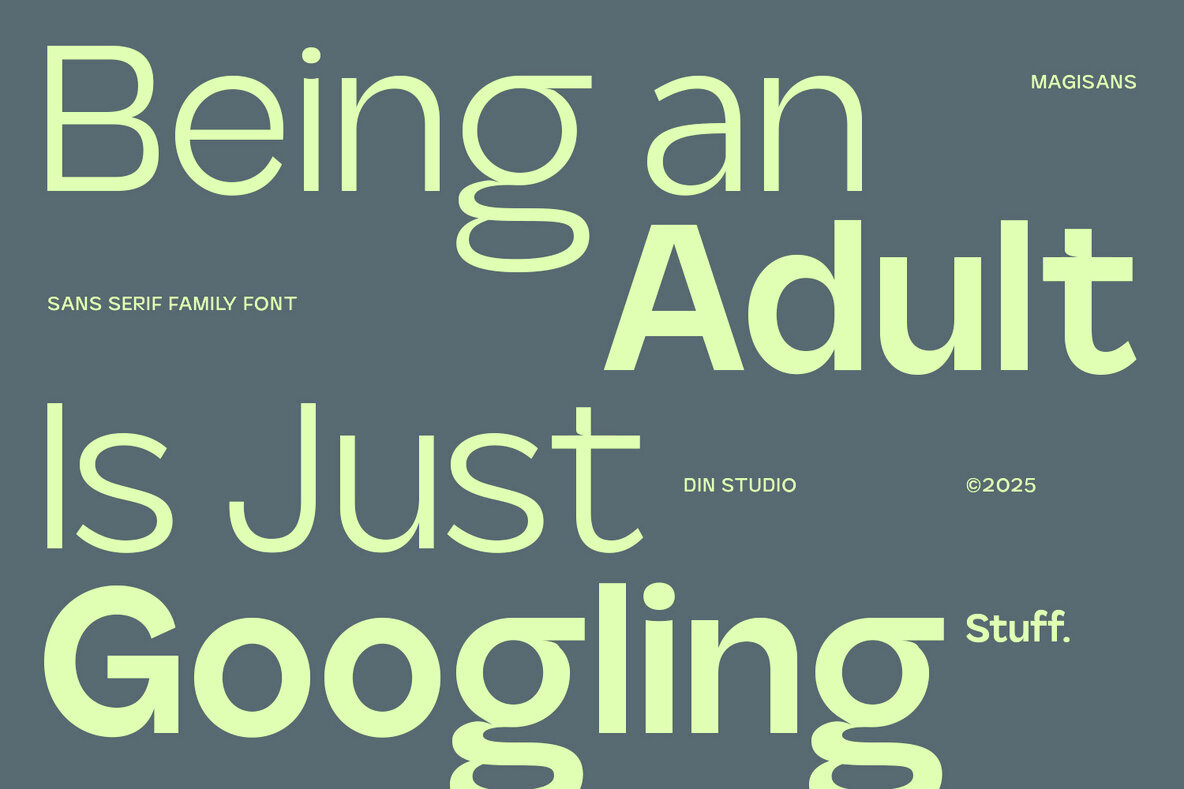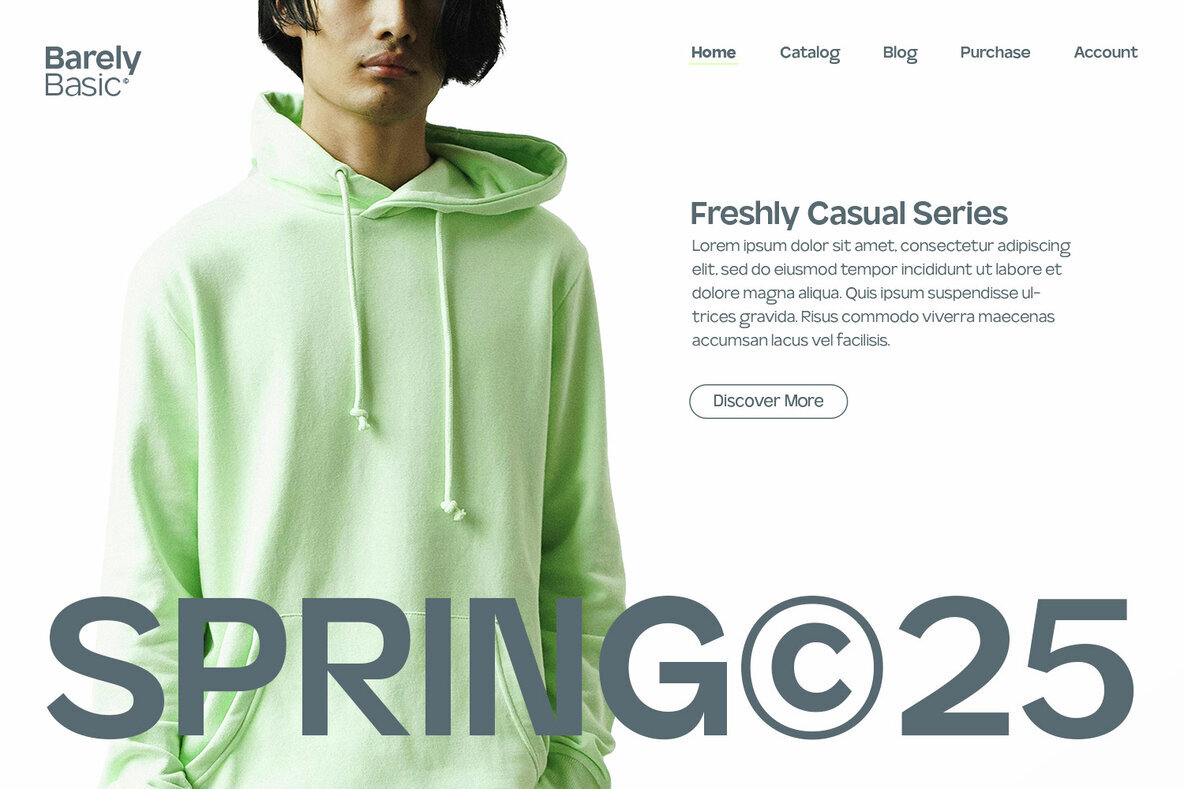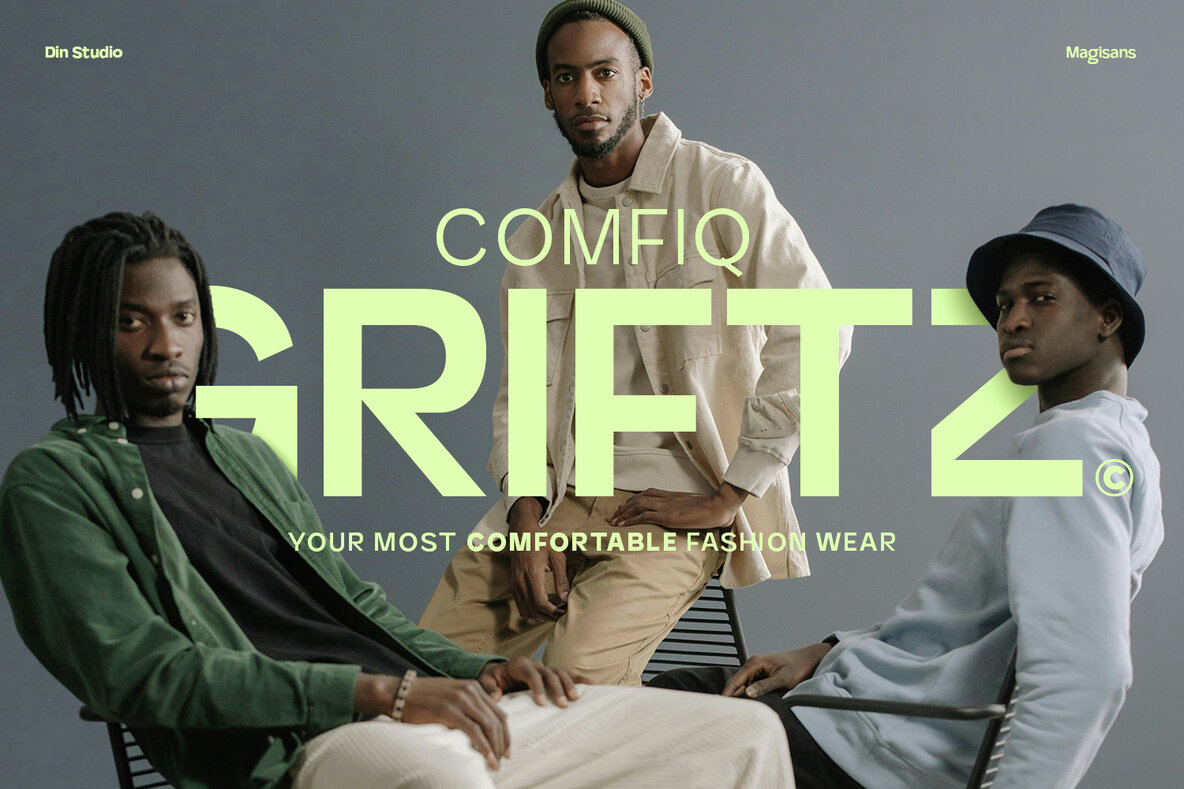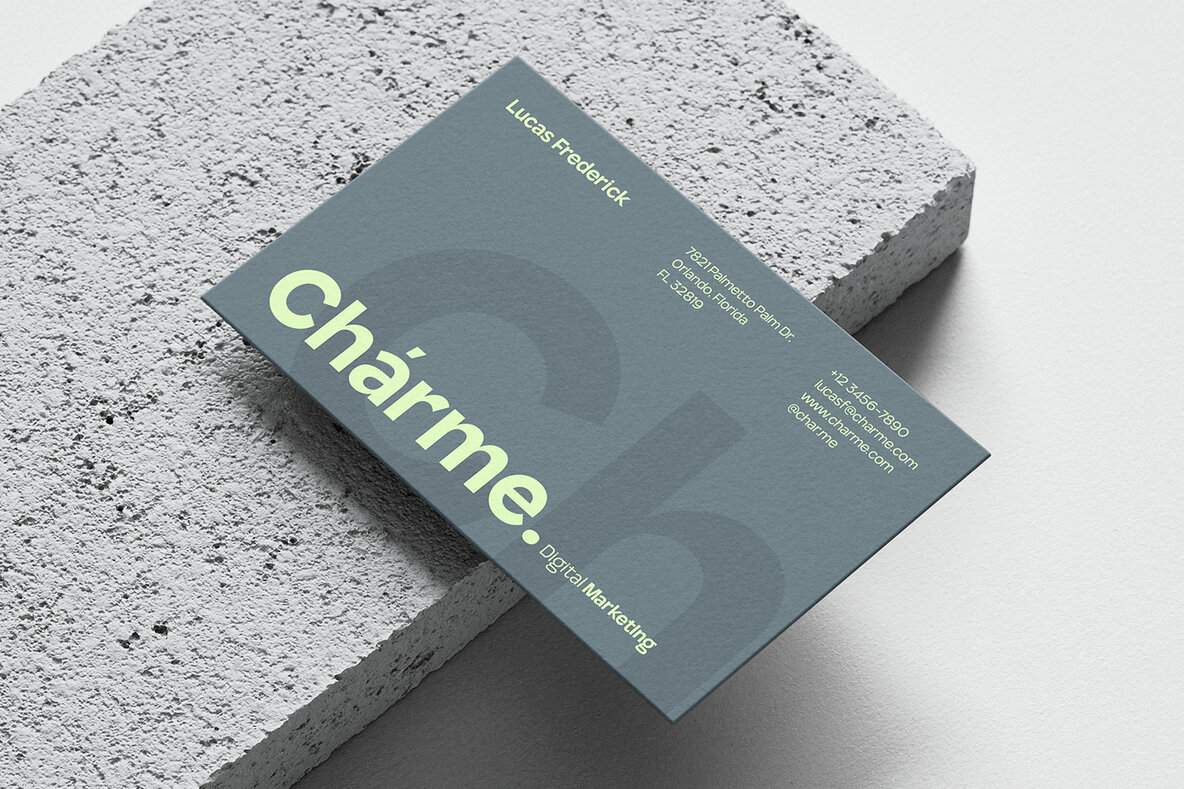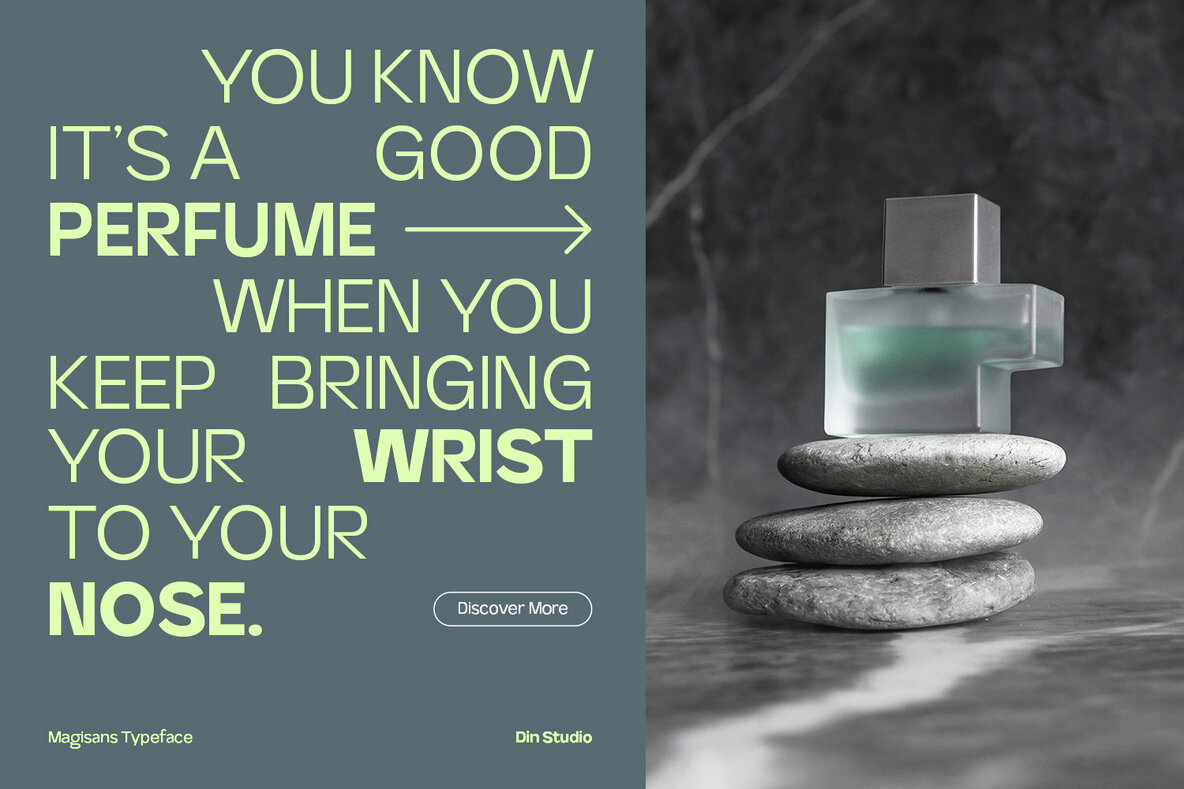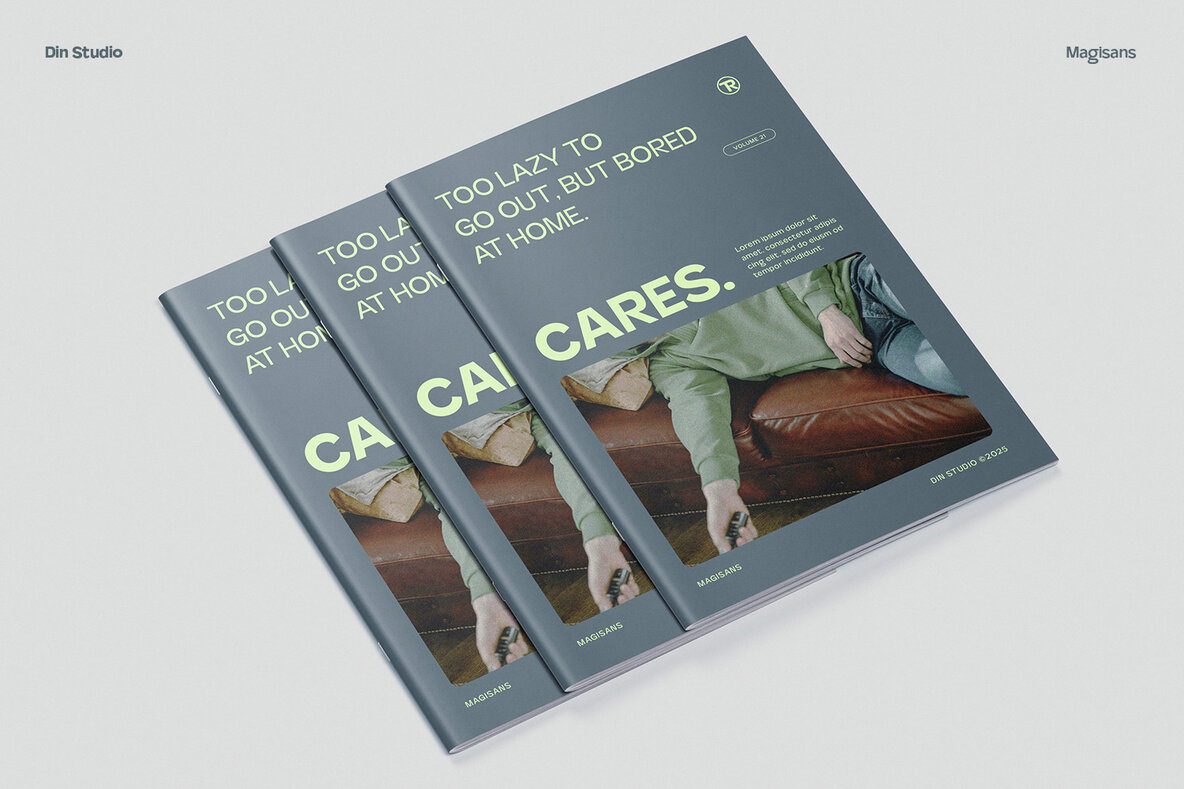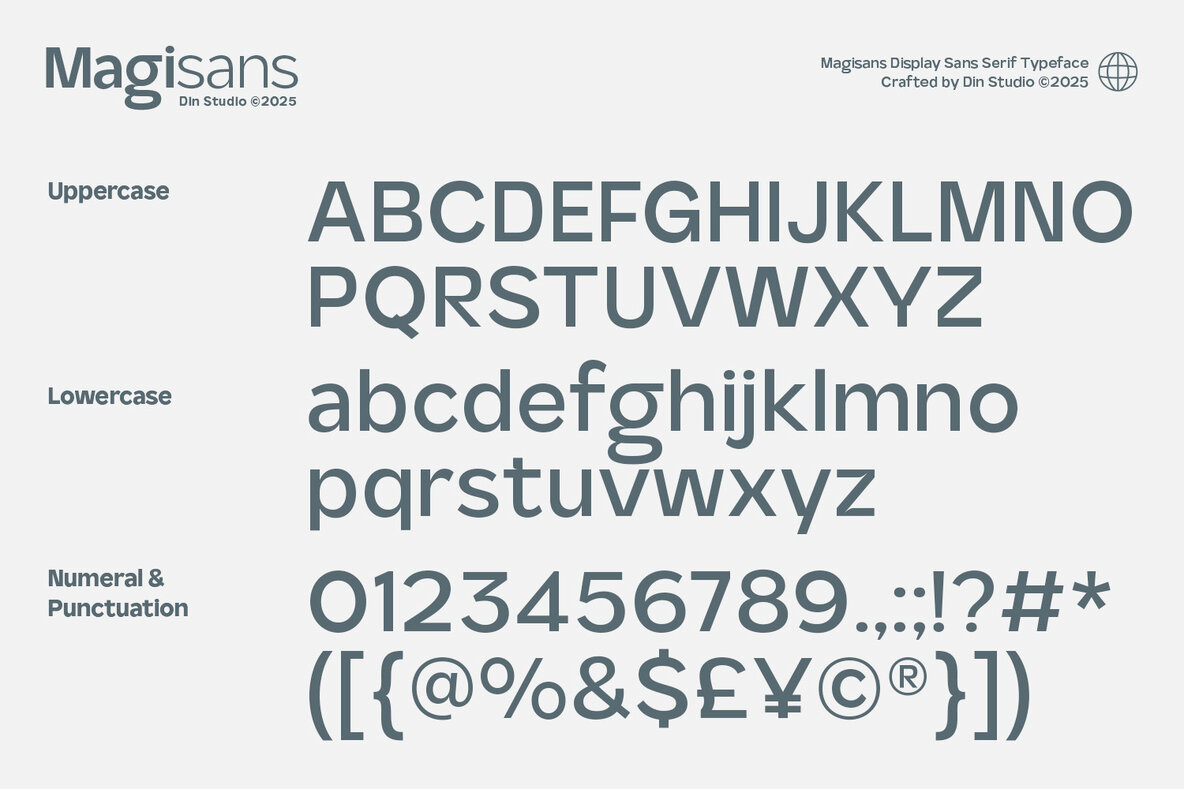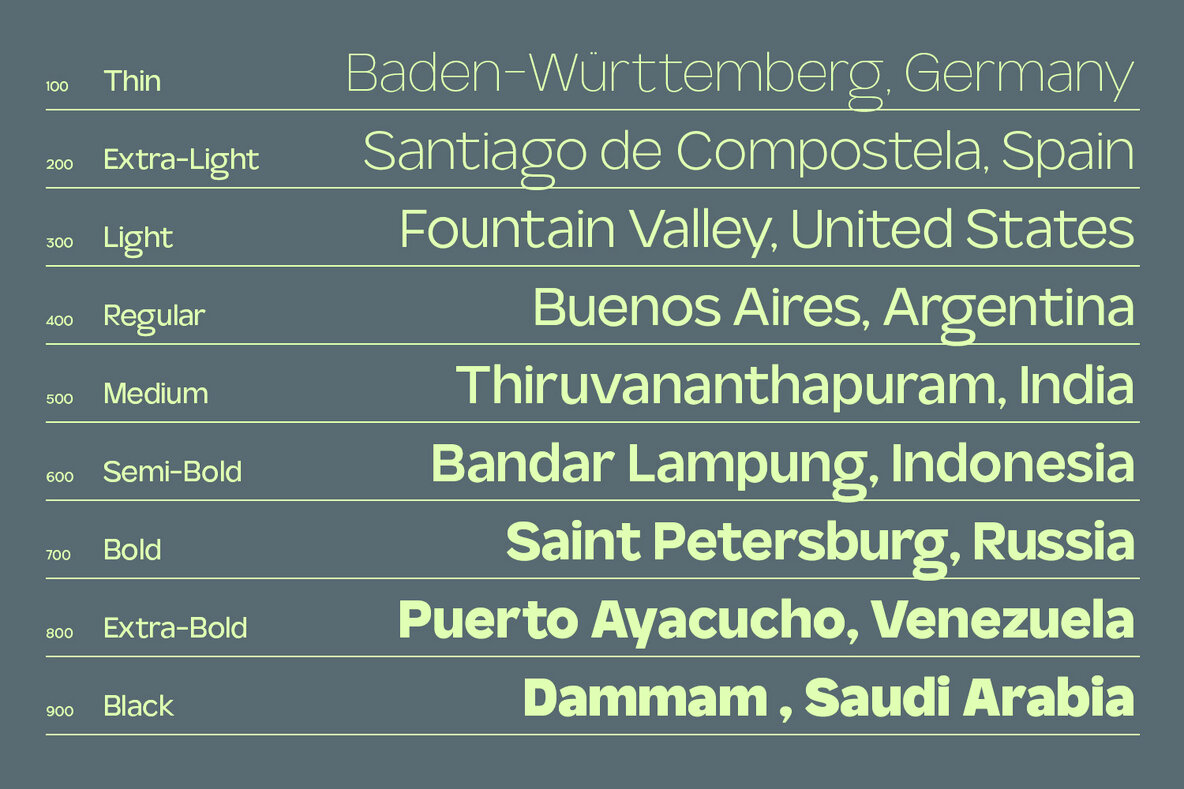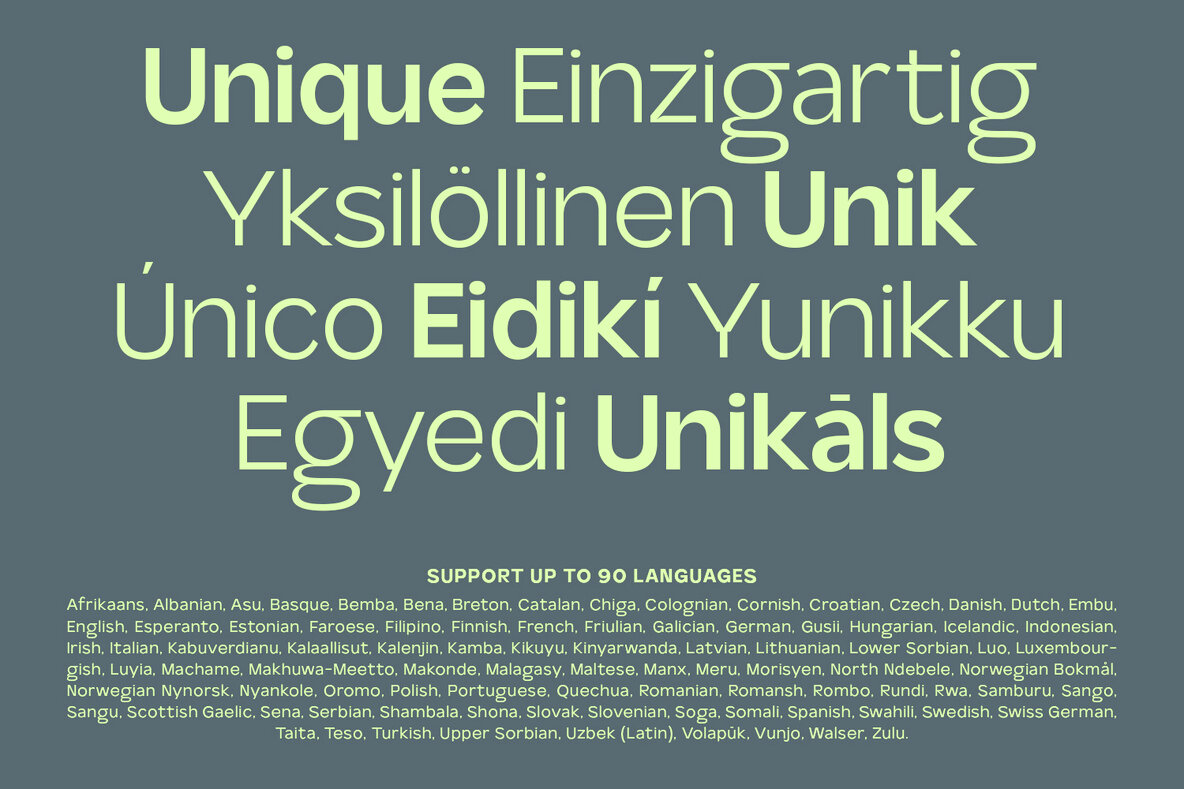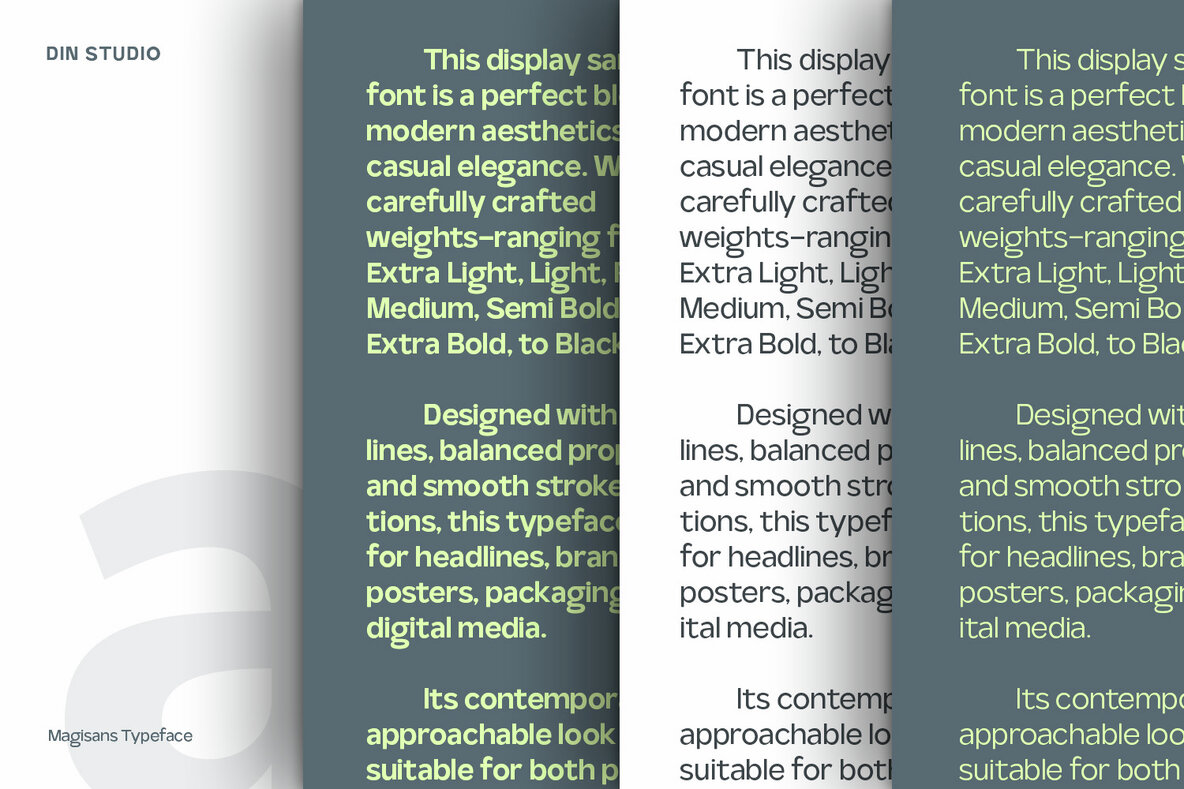
Magisans Font
Magi Sans is a sophisticated sans-serif font that blends elegance and modernity into a versatile typeface. Designed with clean lines and balanced proportions, it offers a refined aesthetic suitable for both professional and creative projects. With nine different font weights ranging from Thin to Black, Magi Sans provides the flexibility to adapt to diverse design needs. Whether seeking a light, airy touch or a bold, impactful statement, this font caters to various styles with ease. Suitable for logos, branding, editorial design, web interfaces, and signage, Magi Sans fits seamlessly into numerous design contexts. Consider exploring its possibilities through a font preview for deeper inspiration.Magi Sans: Elegant Sans-Serif for Versatile Design
Font Weights and Flexibility